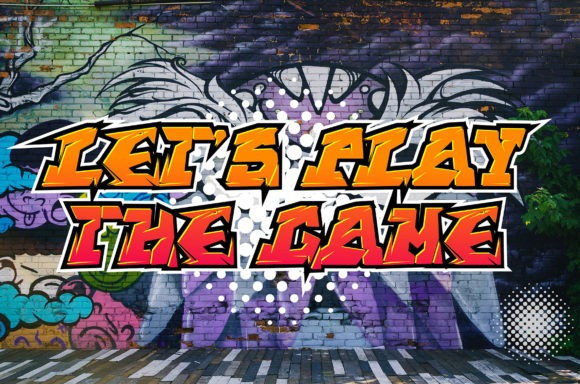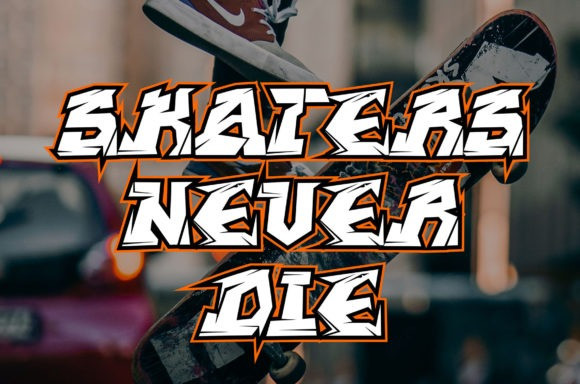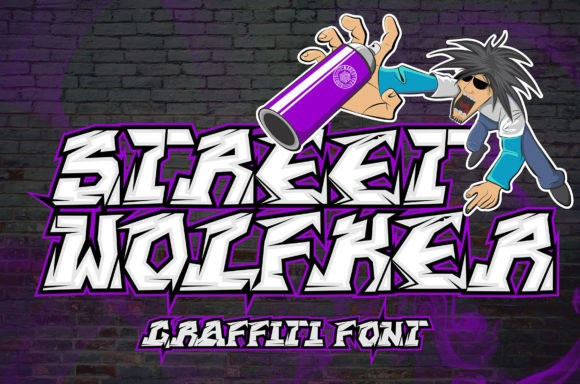
Street Wolfker Font
Street Wolfker Font is a cool, graffiti styled display font. Add it to each of your urban art designs and you will love the final outcome.